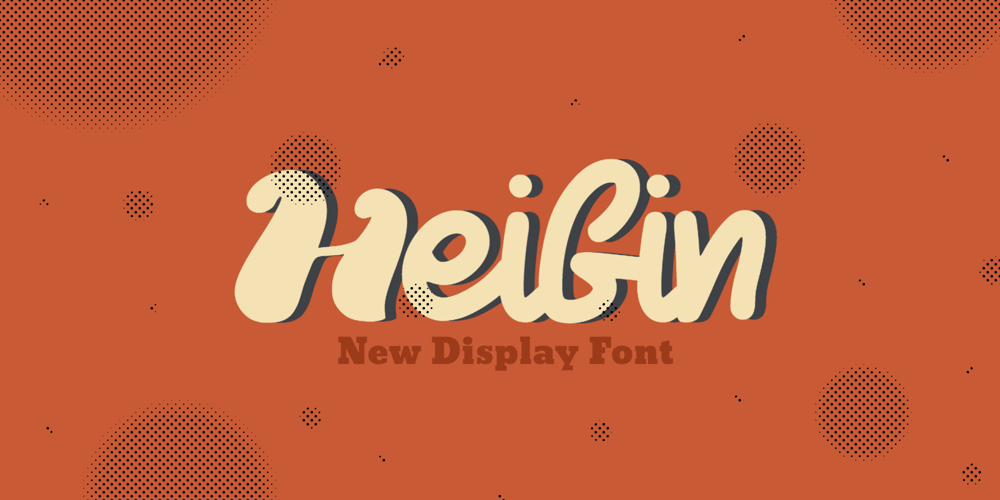
Heifin Font Family was designed by Zaizafun Hanifah and published by Daily Studio. Heifin contains 1 styles and family package options. Heifin is a beautiful bold typeface designed by Daily Studio. Contain unique upper and lowercase best for any purpose, especially to make a title, logo, and branding. This font will make your projects looks more stunning and amazing. Use your creativity to mix and match with other font to create a masterpiece.